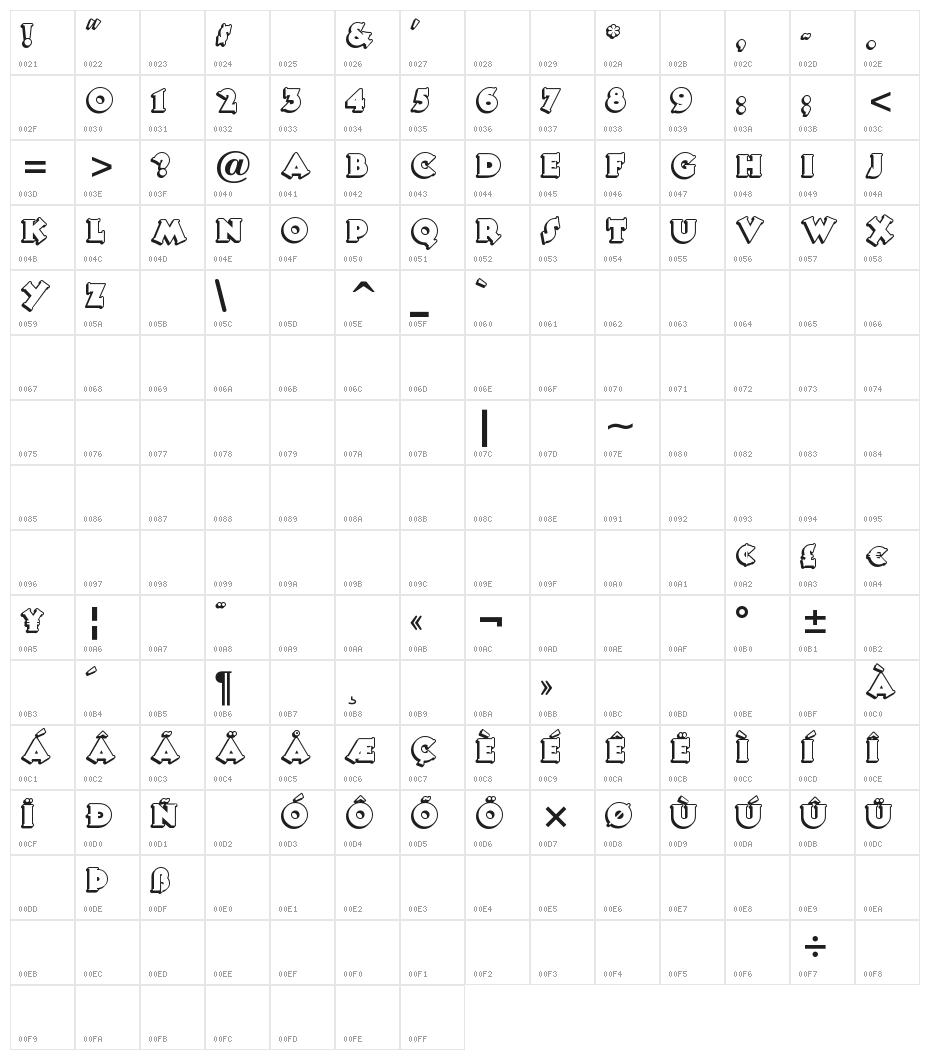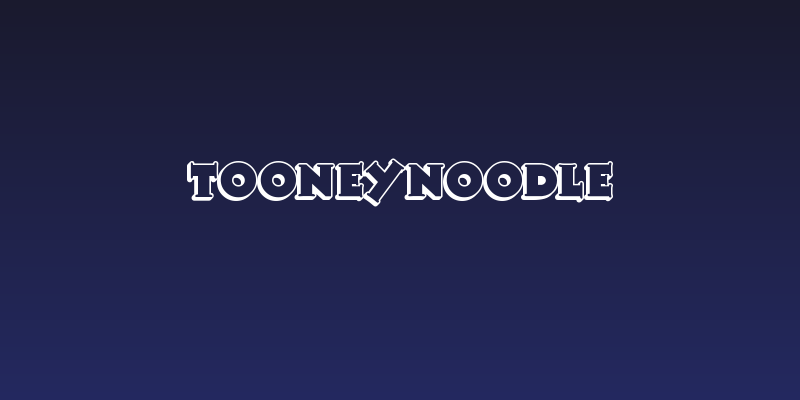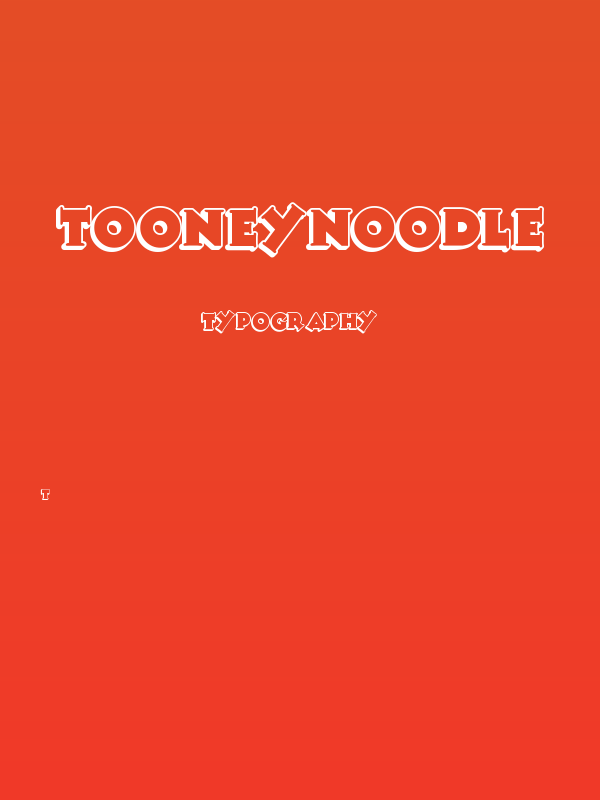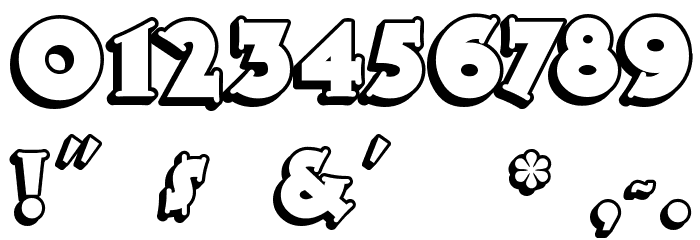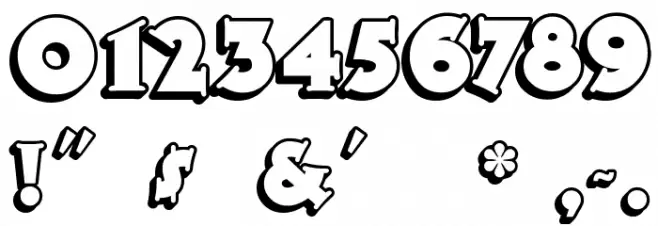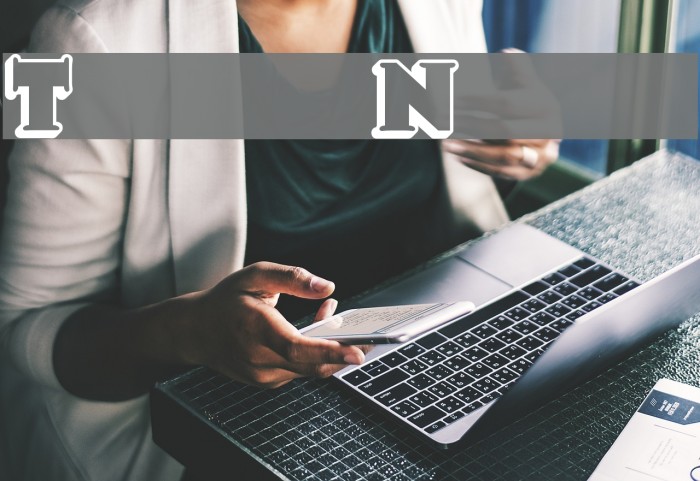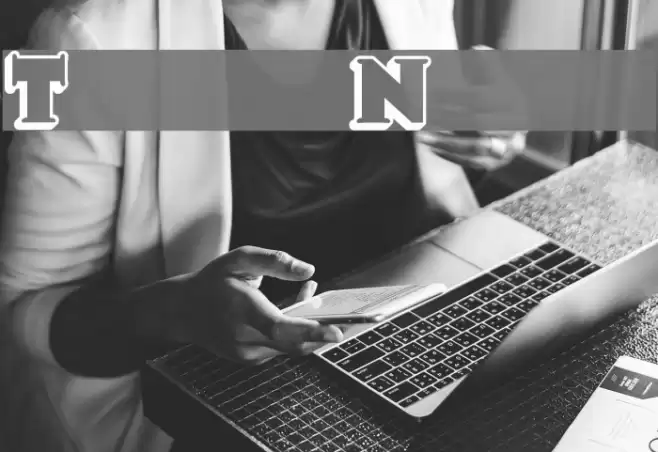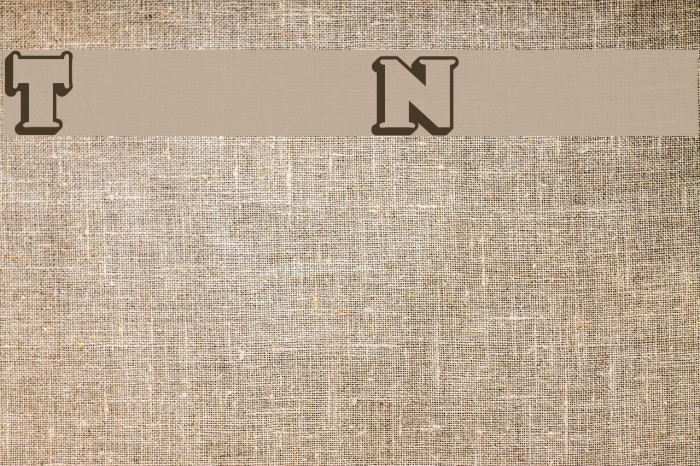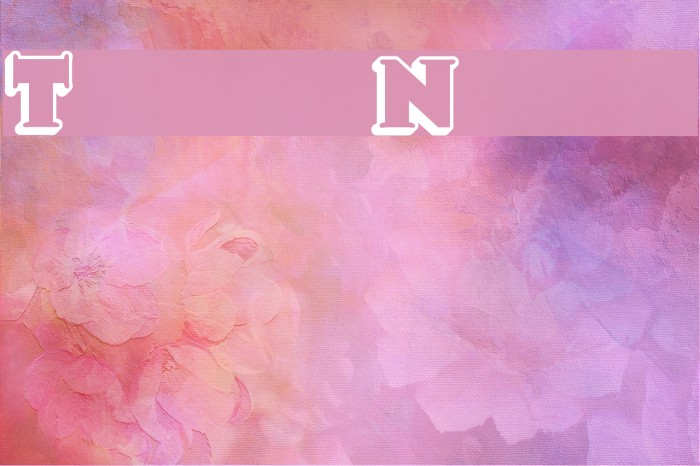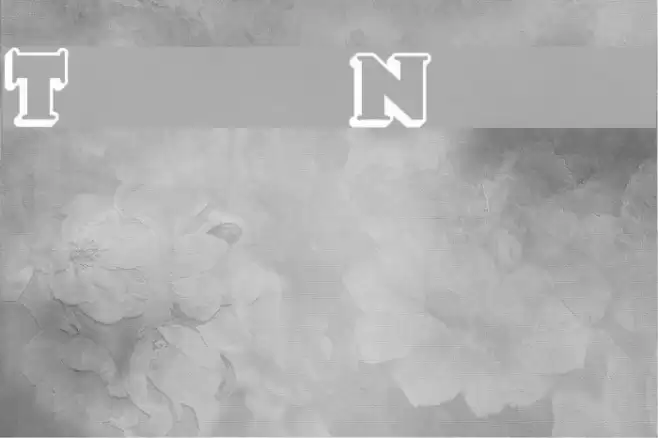
TooneyNoodle Font
TooneyNoodle Description
This playful and bold font features a cartoonish style with thick, rounded edges and a strong 3D effect. The letters are uppercase and have a shadow that gives them a sense of depth and dimension. The numbers and special characters follow the same design, maintaining consistency throughout. The font's whimsical nature makes it ideal for projects that require a fun and engaging look. Its boldness ensures readability while the unique style adds a touch of creativity.
| Overall Style | Playful, Cartoonish |
| Proposed Projects | Ideal for children's books, comic strips, playful branding, and party invitations. |